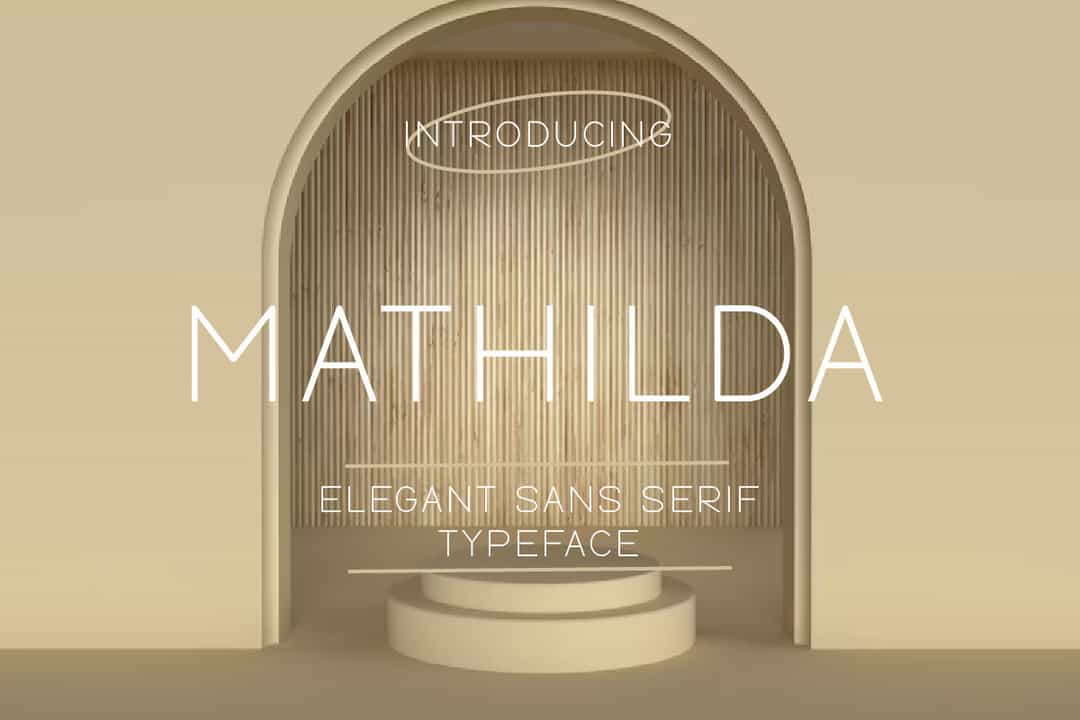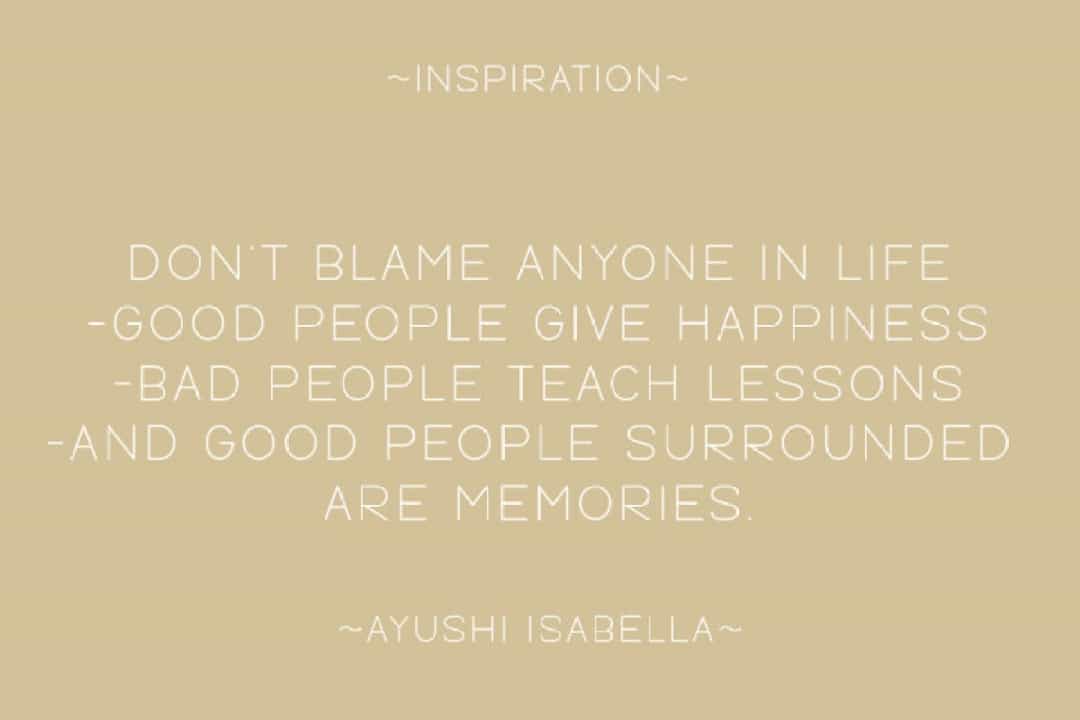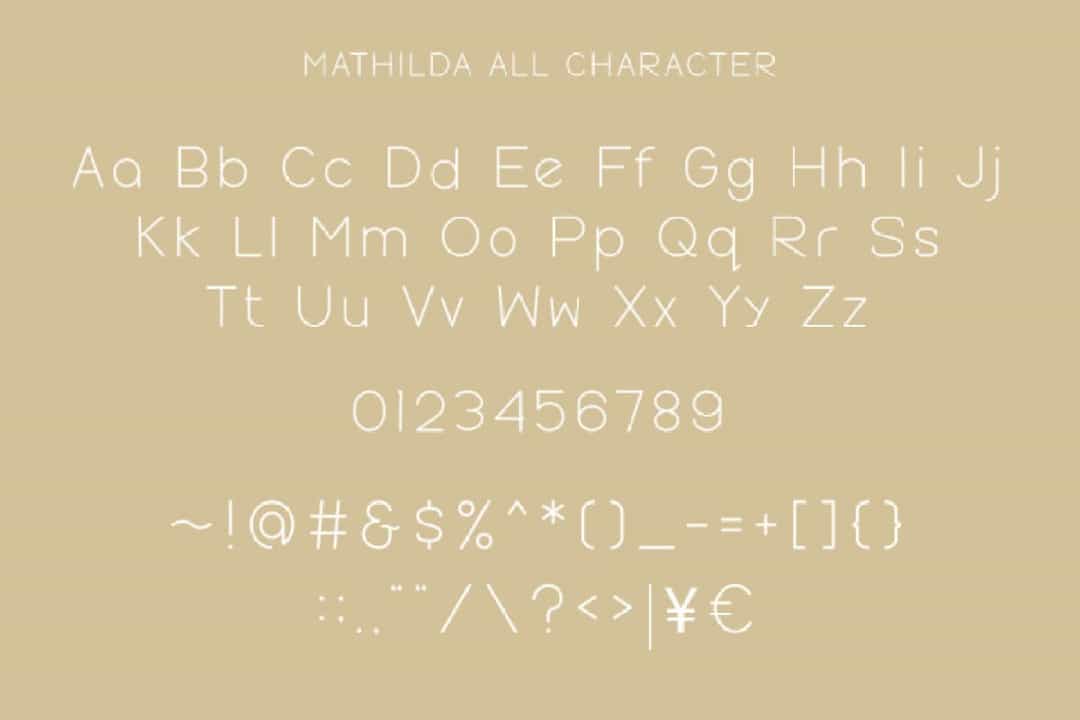
“Mathilda”, our Elegant Sans Serif Font, was inspired by the minimalist logo with the same name, making it perfect for designing brochures, templates and videos, branding for advertising or invitations as well as design layouts such as beautiful crafts designs or beauty themes.